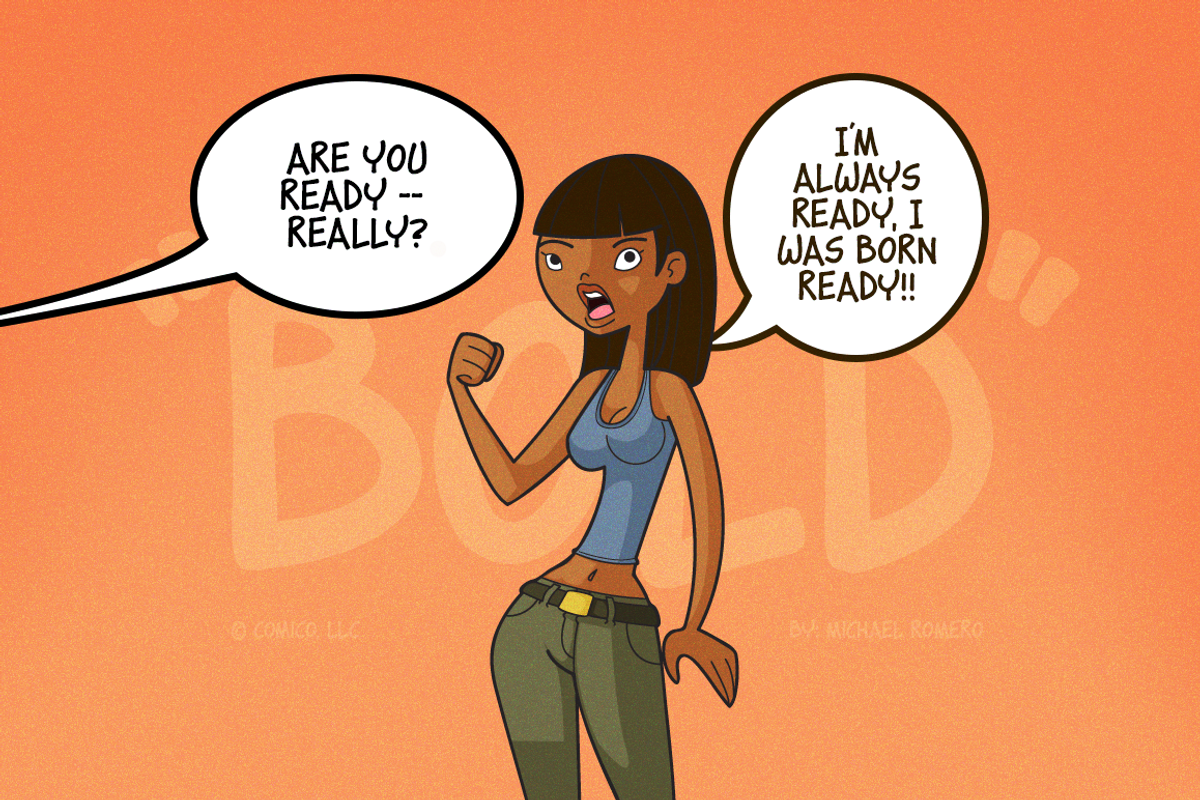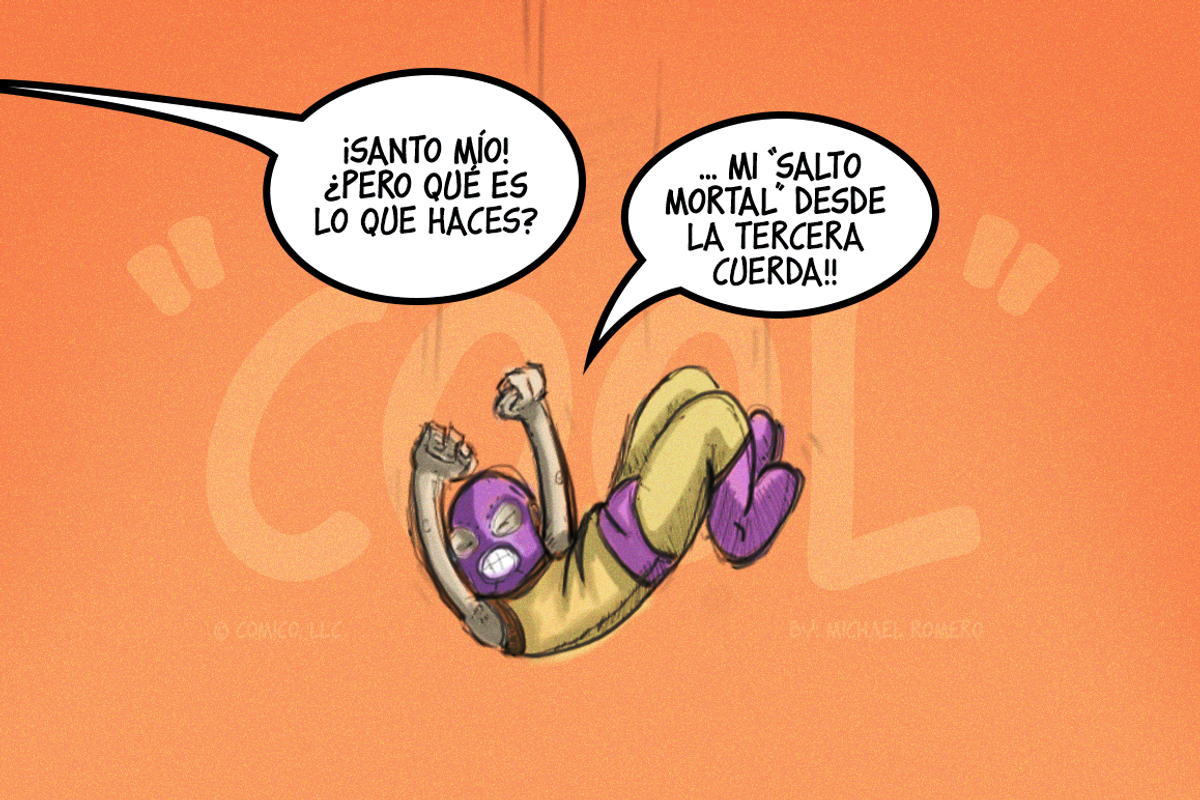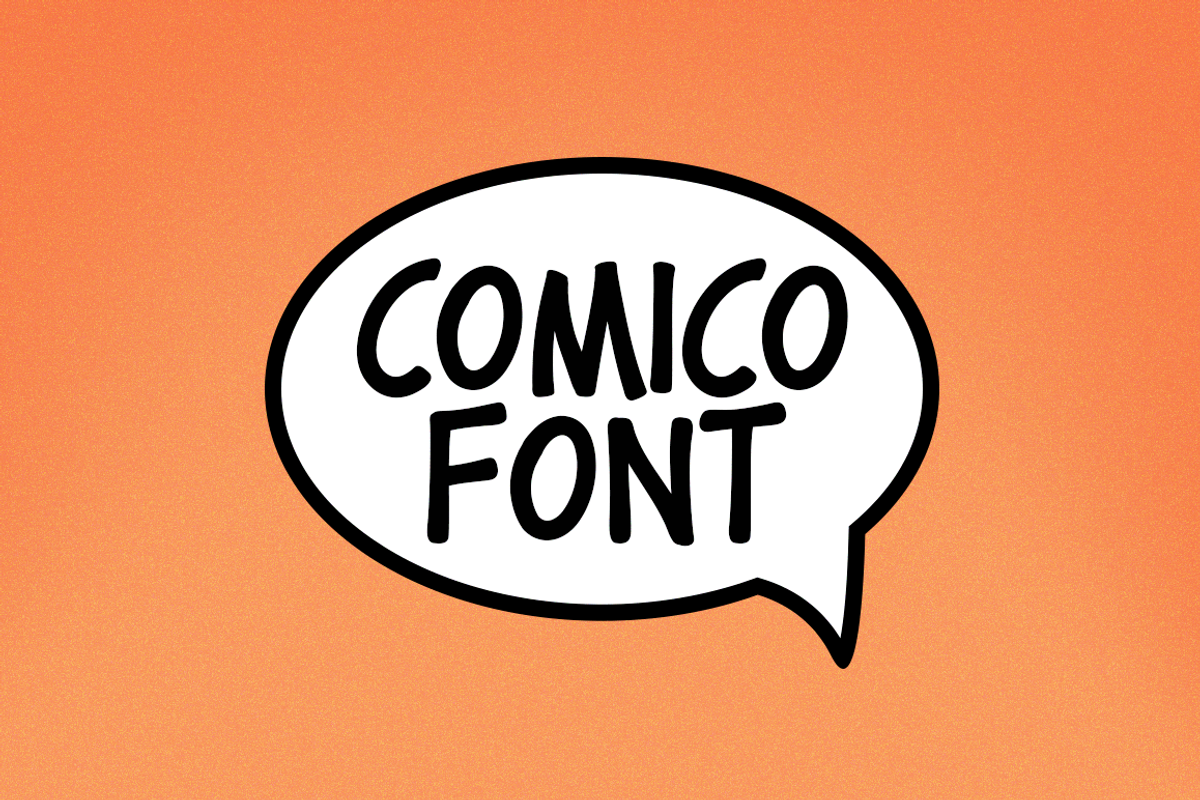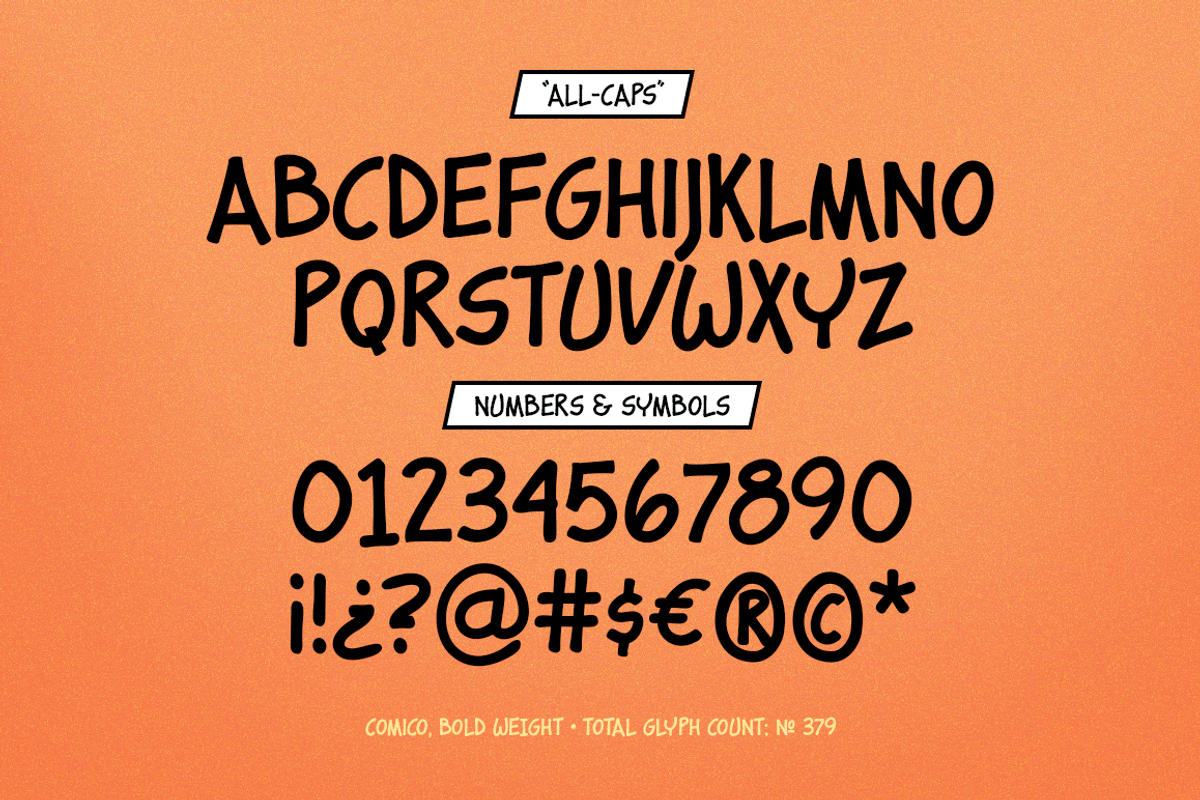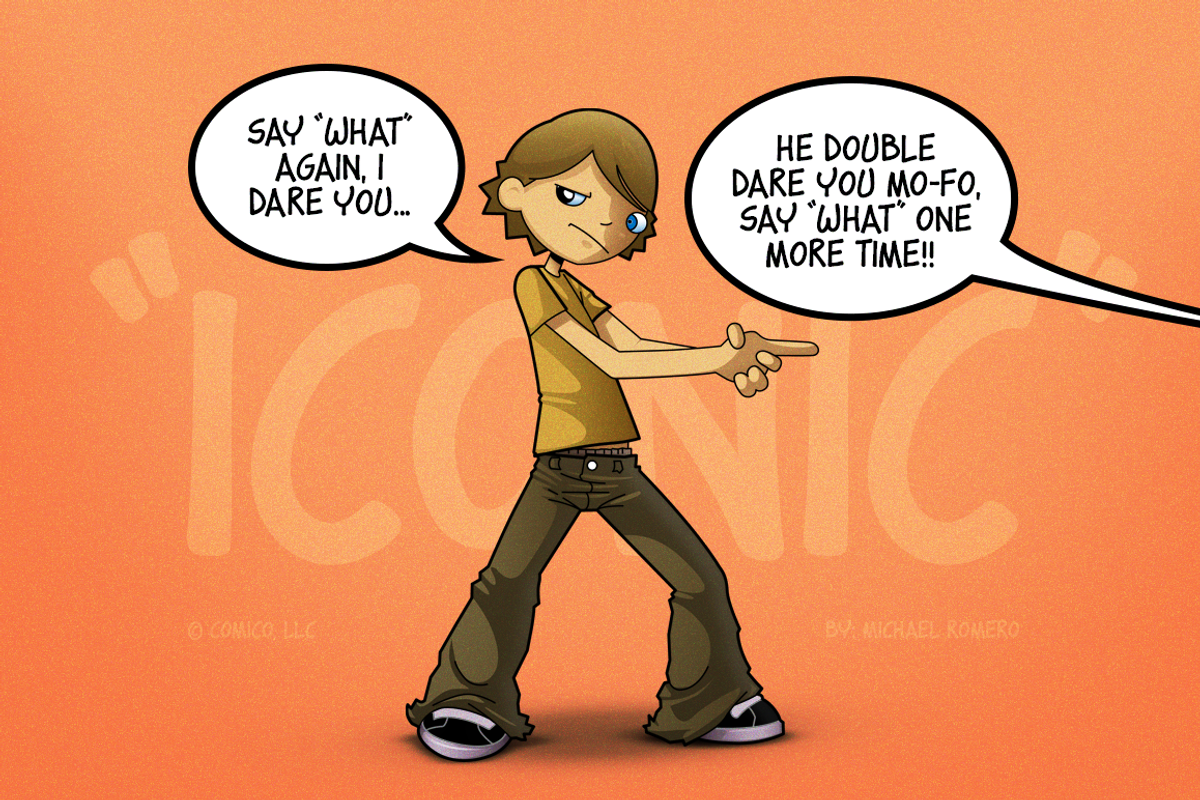
Comico Dialogue
Comico is a dialogue bold comic strip style typeface with uppercase characters alphabet, standard punctuation, and international characters for multi-language support features flexible structure combine with a tall x-height and casual spacing between glyphs.